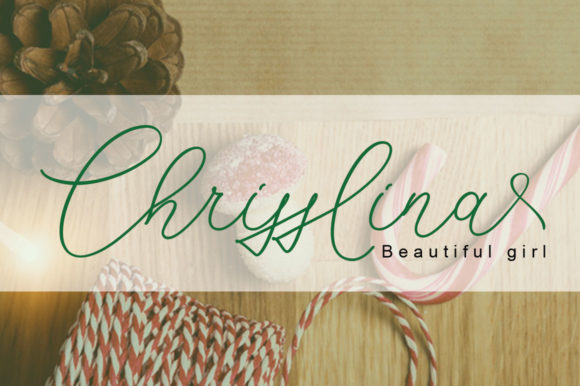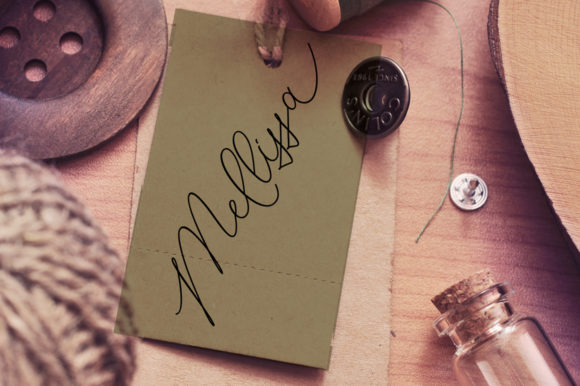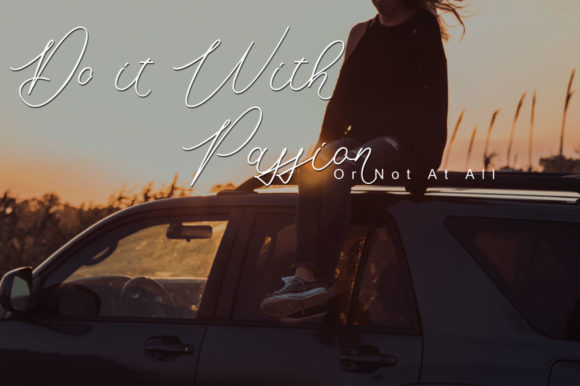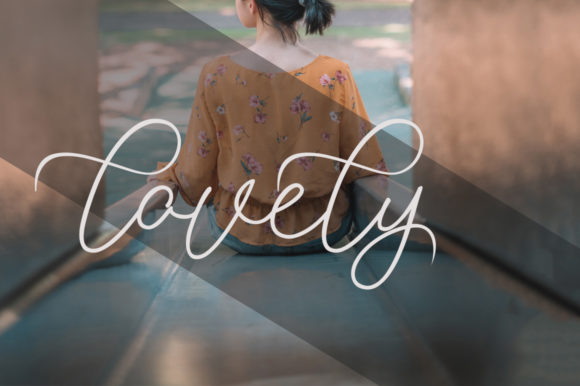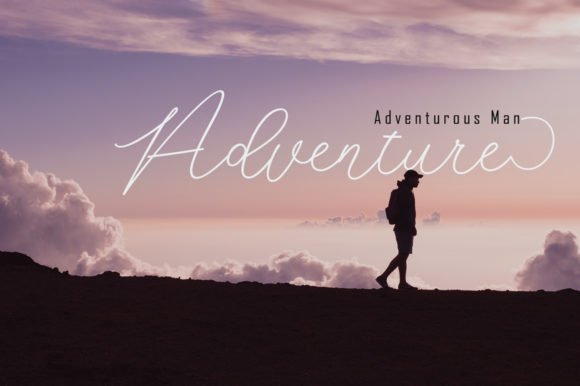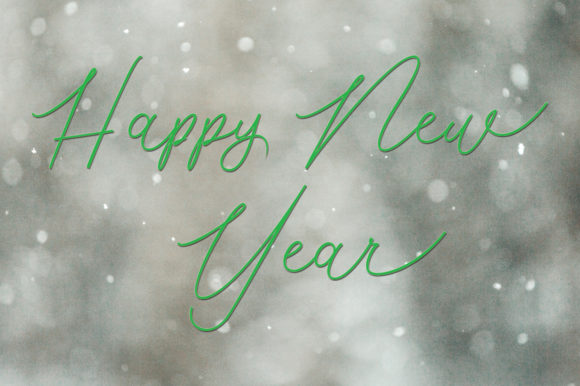
Introduction to Nottalia Font
As designers, we’ve all been there – staring at a blank canvas, trying to bring our creative vision to life. The right font can be the spark that ignites a project, elevating it from bland to grand. And for those who crave a touch of elegance and sophistication, the Nottalia Font is about to become your new best friend.
This stunning modern calligraphy typeface boasts casual cursive lines that exude a sense of effortless cool, making it the perfect addition to any design project. Whether you’re working on a branding campaign, a wedding invitation, or a blog post, the Nottalia Font is sure to add a level of refinement and sophistication that will leave a lasting impression.
Key Features of Nottalia Font
- Unique Hand-Drawn Design: Nottalia Font features a distinctive hand-drawn design, making it an excellent choice for creative projects that require a personal touch.
- High-Quality Typography: This font is designed to provide high-quality typography, ensuring that your text stands out in any design.
- Transparent Background: Nottalia Font comes with a transparent background, allowing for seamless integration into any design, including logos, graphics, and other visual elements.
- High Resolution: This font is designed at a high resolution of 300 DPI, ensuring that it looks crisp and clear on any device or screen.
- Perfect for Designers: Nottalia Font is an excellent choice for designers working on creative projects, including branding, graphics, and web design.
Honest Review: Nottalia Font
I recently came across the Nottalia Font, a design resource that caught my attention due to its unique and modern design. I was excited to see how it would perform in various creative projects.
What works well: ✨ The Nottalia Font offers a high-quality, modern design that is perfect for a variety of creative projects. The font is available for free download, making it a great resource for designers on a budget. The font also features a transparent background, which makes it easy to customize and integrate into any design.
What doesn’t work well: ⚠️ The Nottalia Font is only available in a single style, which may limit its use in certain projects. Additionally, the font may not be suitable for use in small text sizes due to its modern design.
Overall, I was impressed with the Nottalia Font. It’s a great resource for designers looking for a modern and high-quality font to use in their creative projects. However, it’s worth noting that the limitations of the font should be considered before using it in any project.
- Pros: Modern design, high-quality, free download, transparent background
- Cons: Limited to a single style, may not be suitable for small text sizes
The Nottalia Font is ideal for:
1. Creative projects, such as graphic design, digital art, and typography.
2. Business presentations, such as PowerPoint presentations and Word documents.
3. Social media graphics and advertisements.